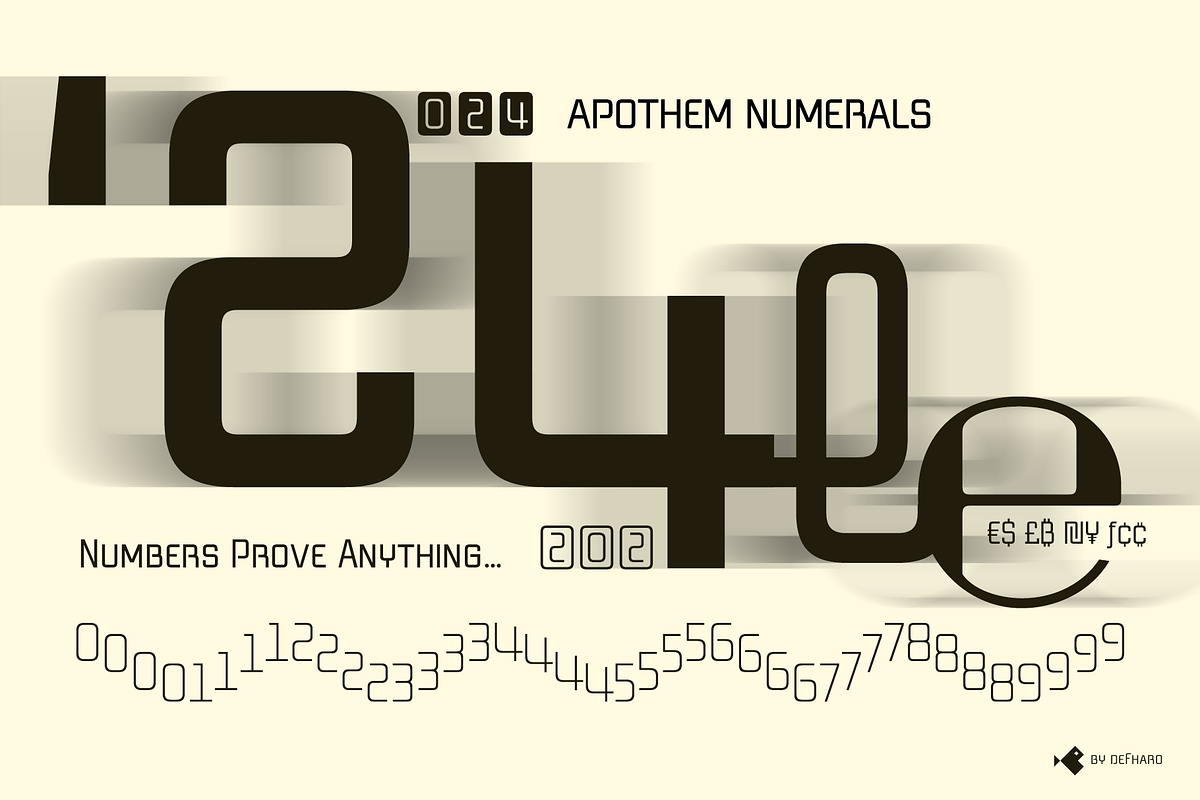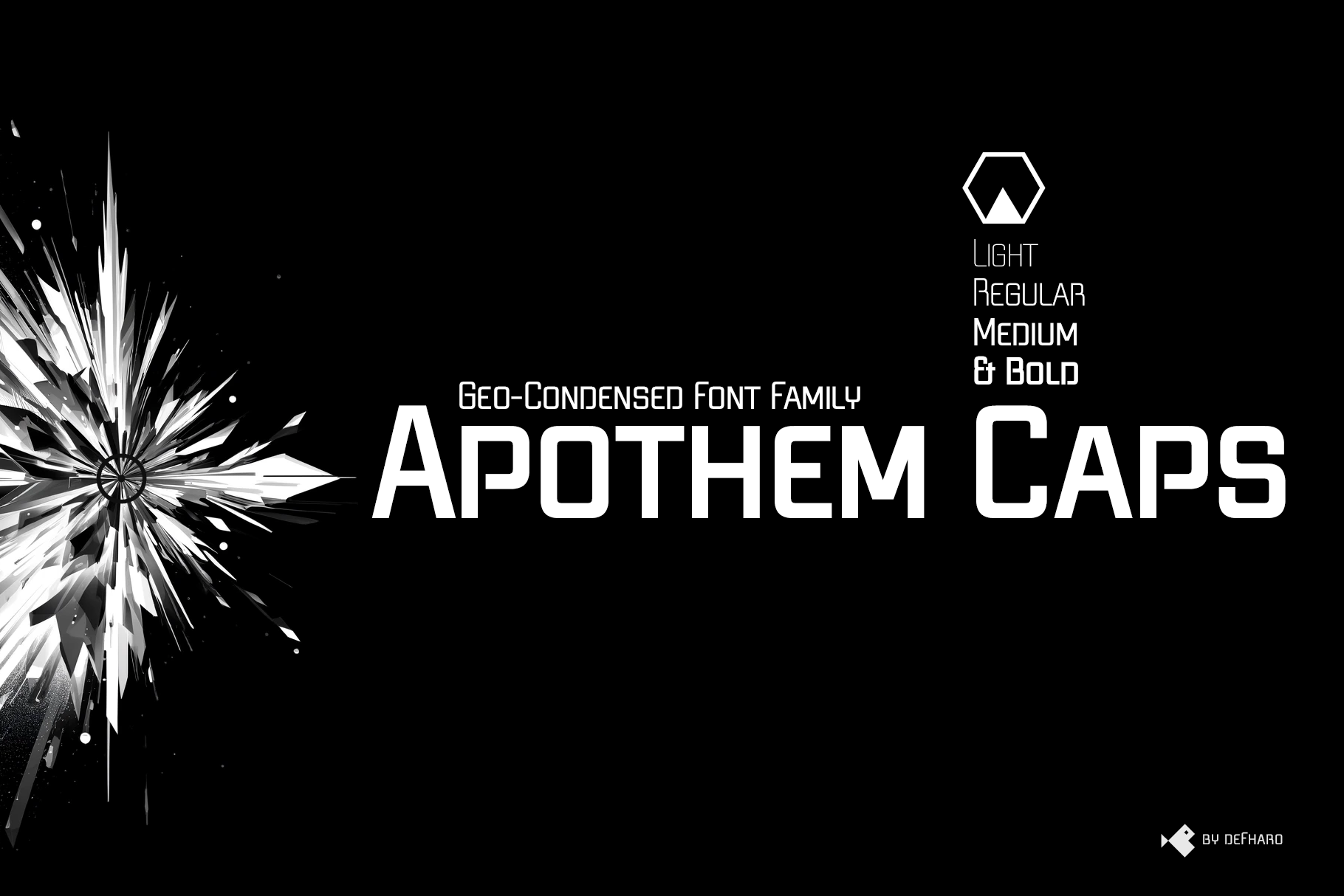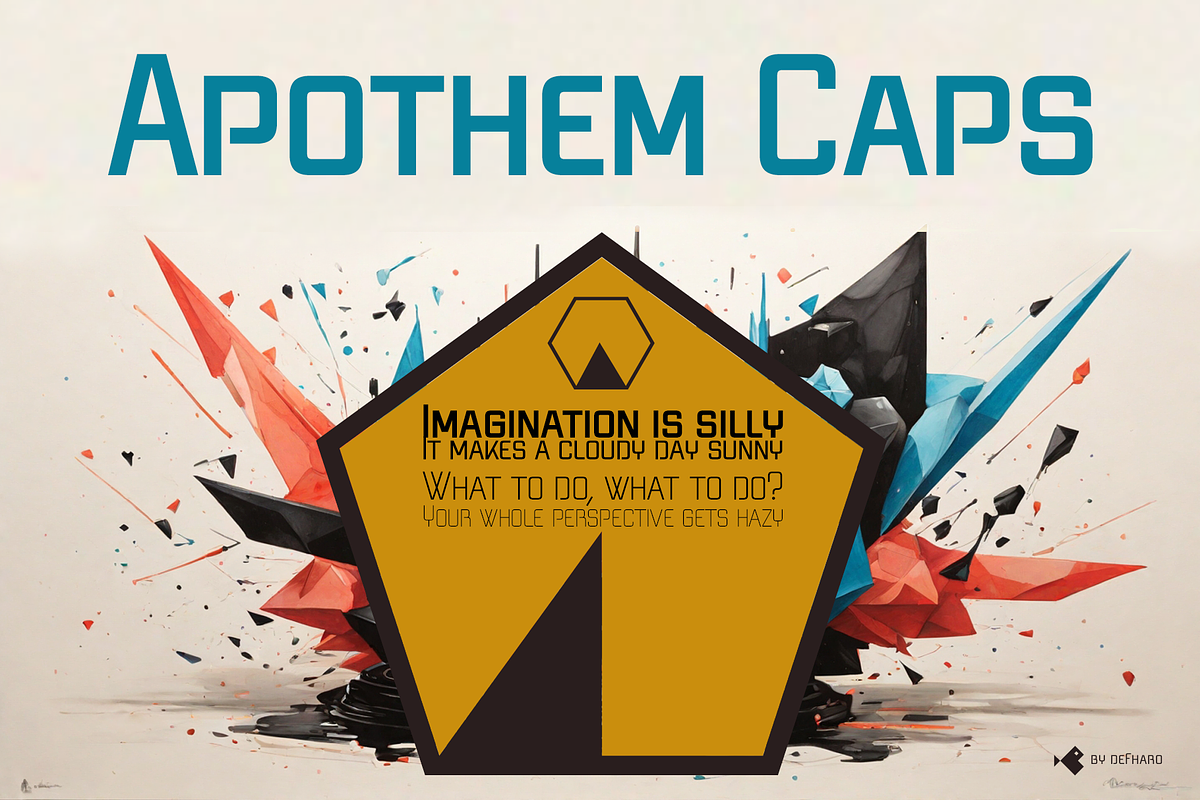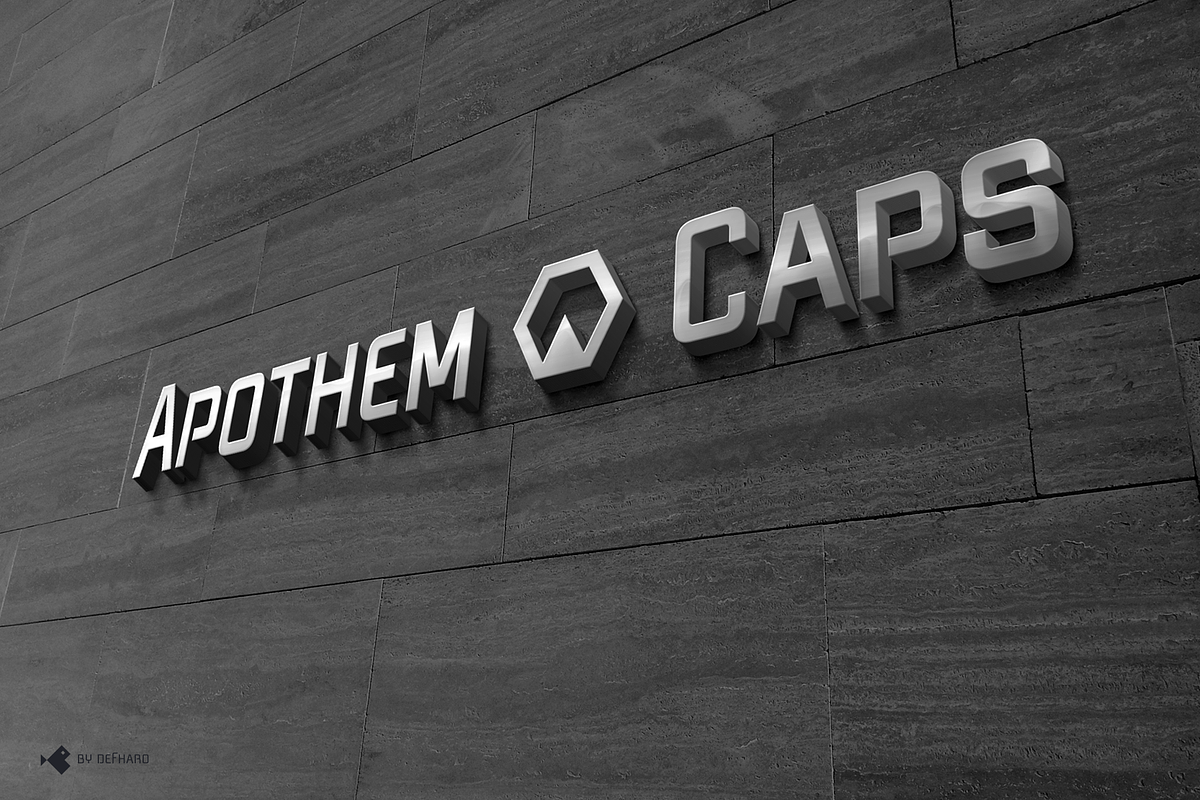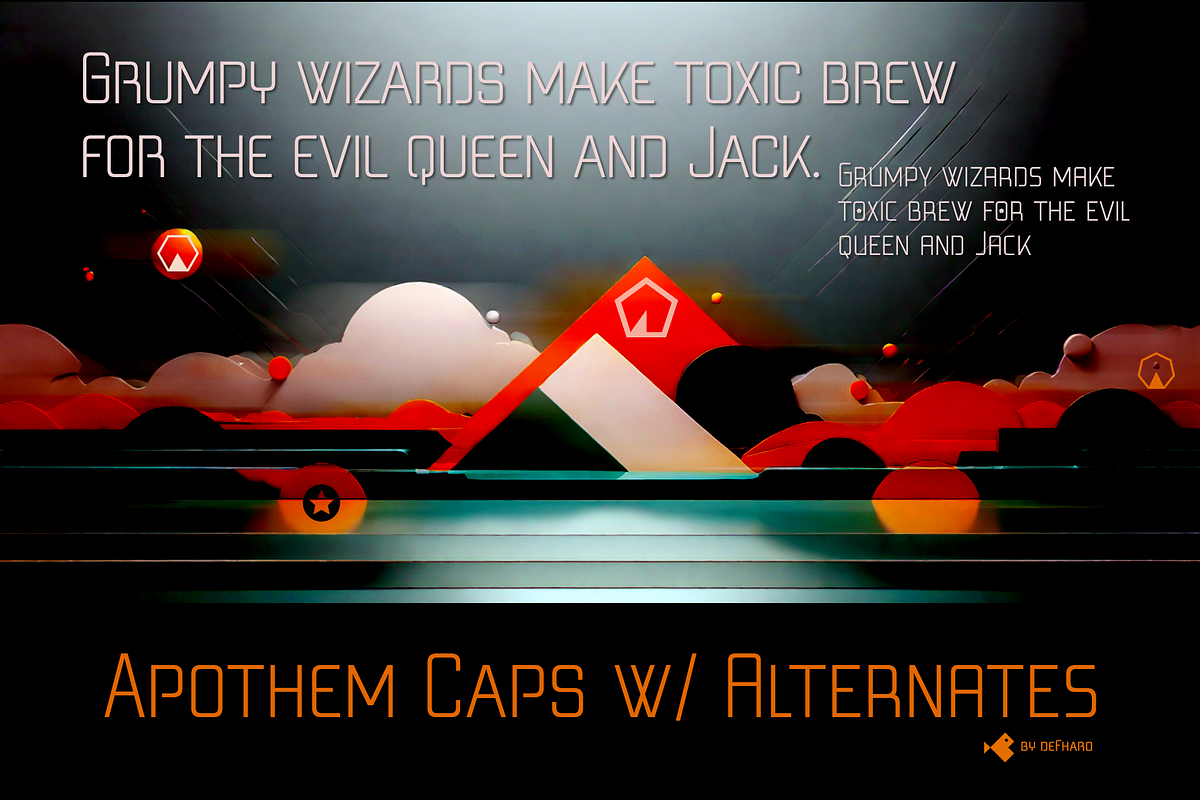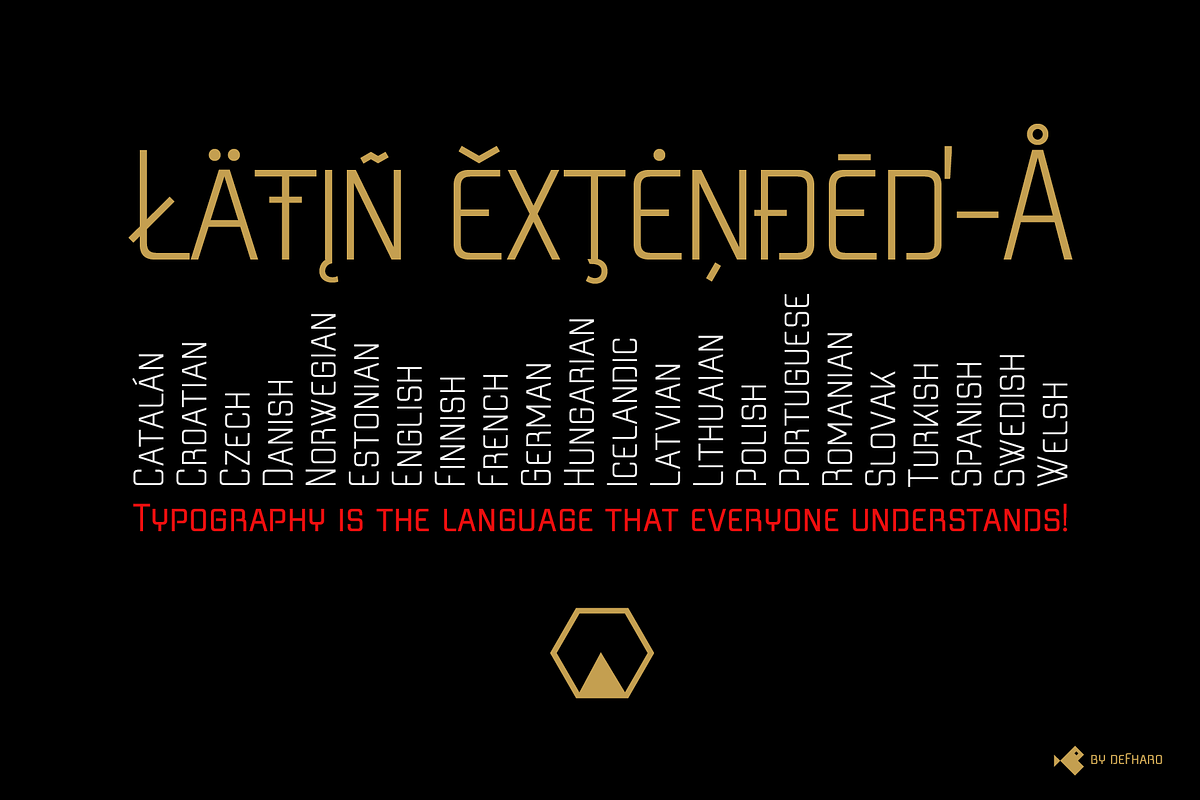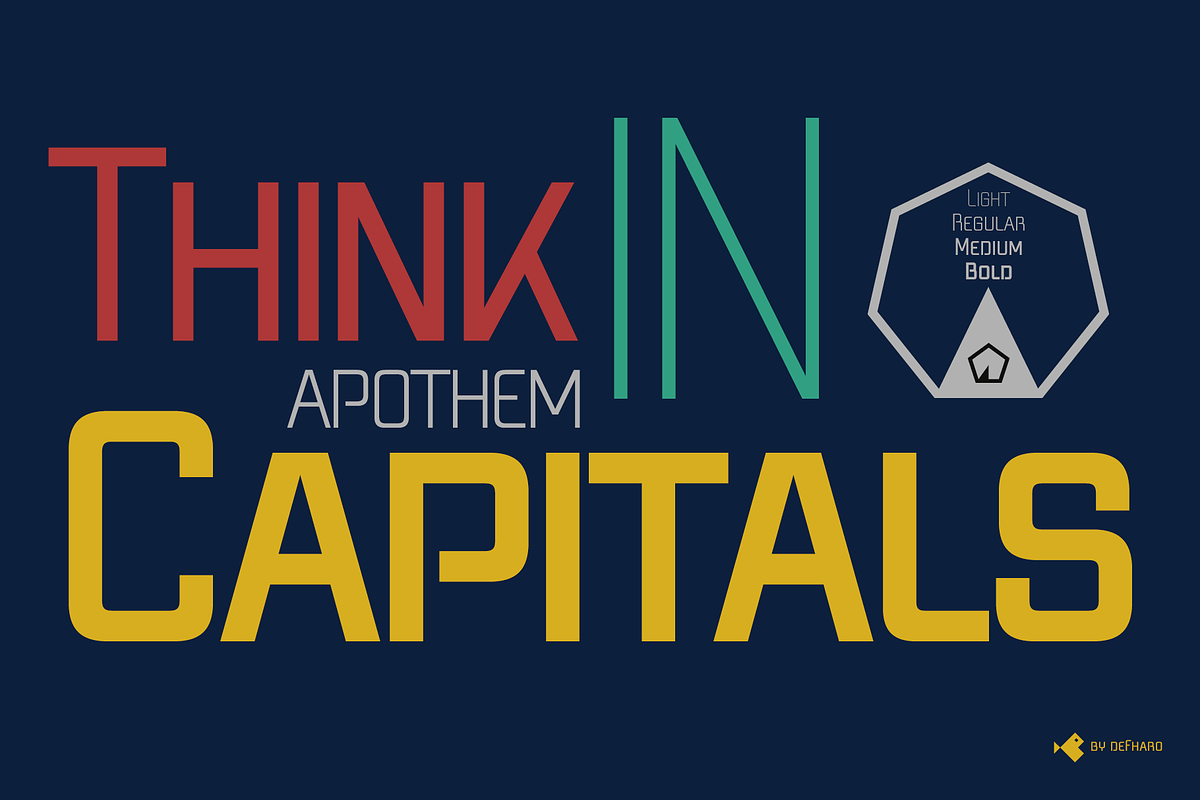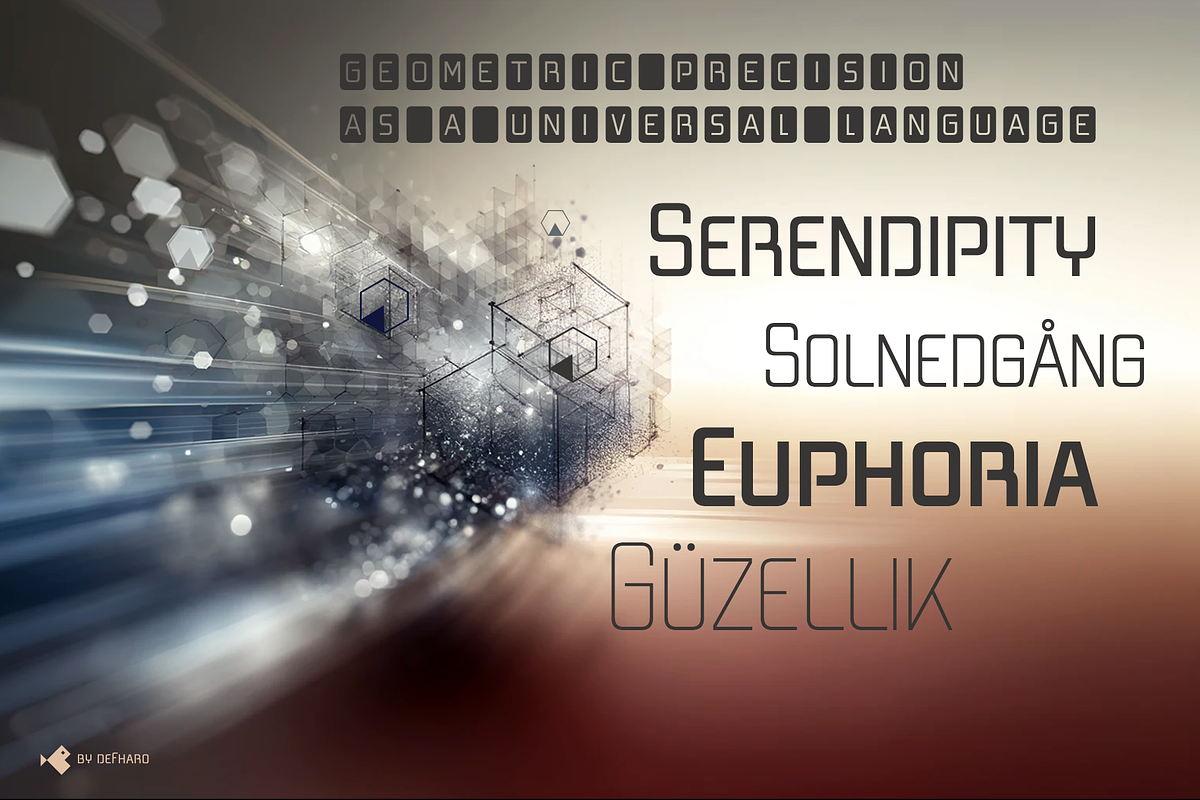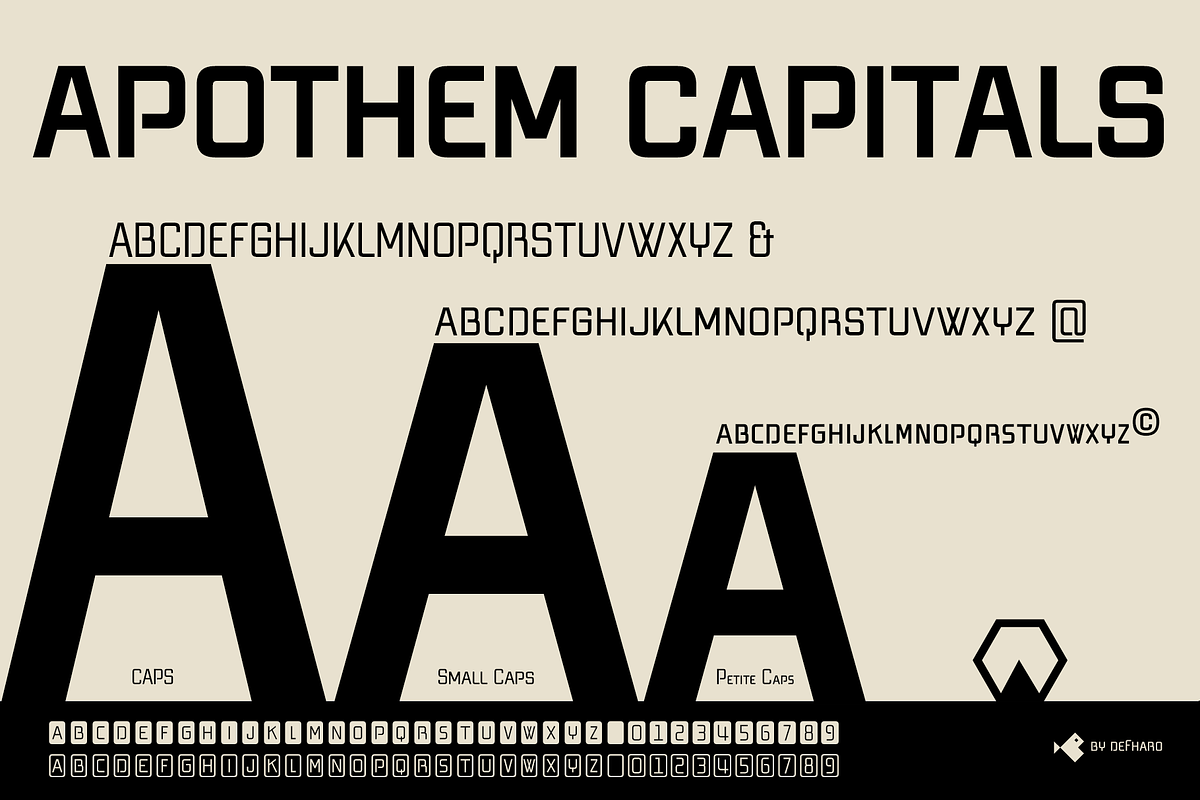
Apothem Capitals -04 fonts
Creating Apothem Caps was no easy task; it required a meticulous process, filled with patience and an unwavering passion for type design. This effort has resulted in a futuristic geometric typeface with condensed proportion and characterized by exceptional legibility and intrinsic elegance.
Apothem Caps is available in four carefully designed weights: Light, Regular, Medium and Bold, providing unique flexibility to meet the diverse needs of designers.
One of the most notable additions to the new Apothem small caps version is the inclusion of three sets of drop caps: Caps, Small Caps and Petite Caps, which significantly expands its possibilities of use.
843 glyphs. Latin Extended-A • OTF & TTF*
Apothem Caps font includes the symbol of Bitcoin and currency symbols.
OpenType Features: Additional languages, Petite Caps, All Alternates, Bitcoin, Capital Spacing, Contextual Alternates, Denominators, Discretionary Ligatures, Fractions, Historical Forms, Inferiors, Kerning, Localized Forms, Numbers Small Caps, Numerators, Oldstyle Figures, Ordinals, Scientific Inferiors, Slashed Zero, Standard Ligatures, Stylistic Set, Subscript, Superior letters, Superiors, Superscript, Titling alternates.